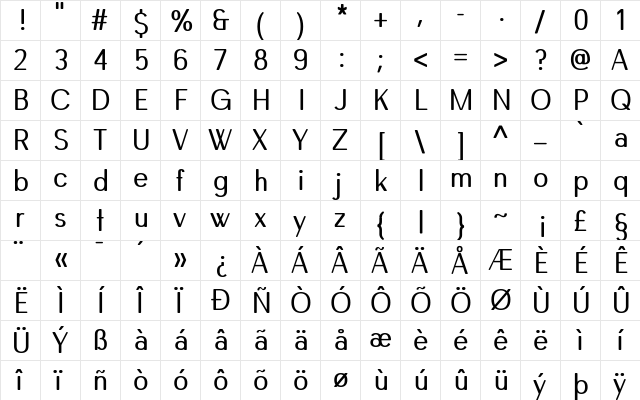
Novae Regular
| Foundry | GOICHA |
| Designer | GOICHA |
Design Context for Novae Typeface
Novae offers clean, dependable letterforms without strong stylistic allegiance, making it a practical choice for designers who need flexibility.
Pro Tip: Pair Novae with a font of contrasting weight or personality to build a more expressive typographic hierarchy.